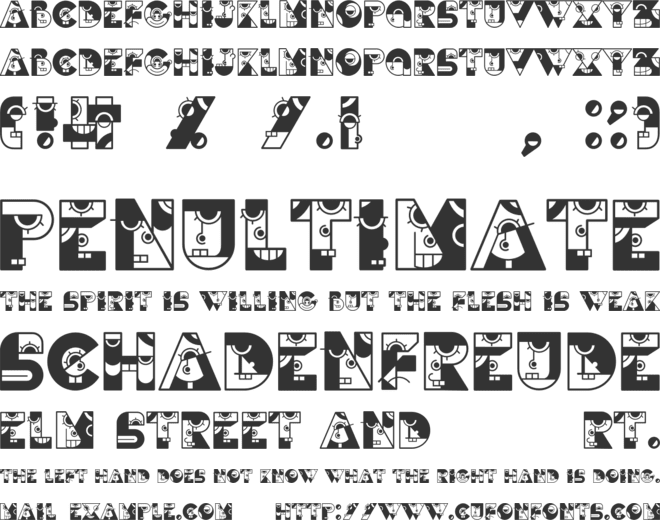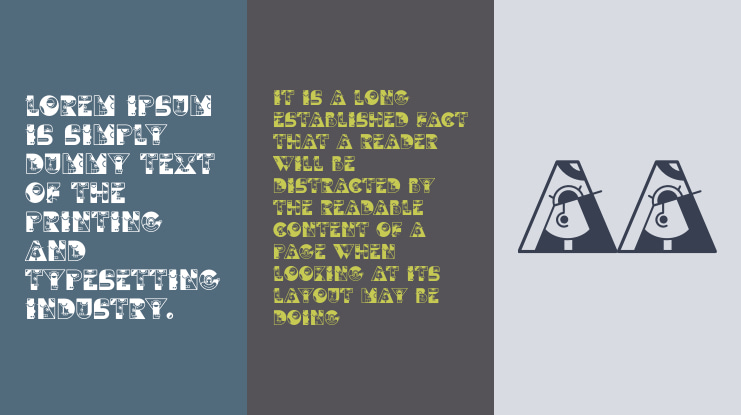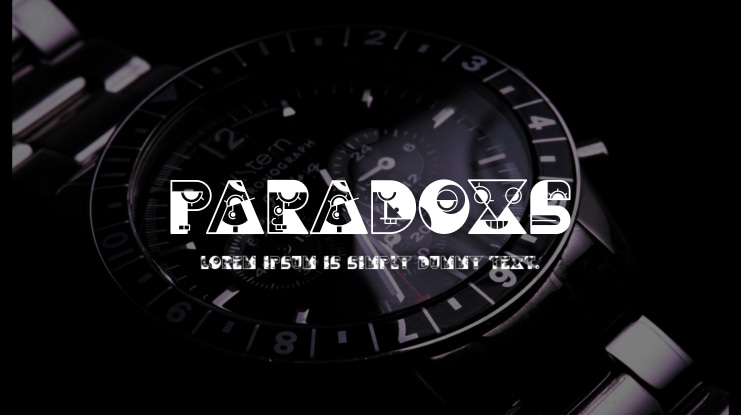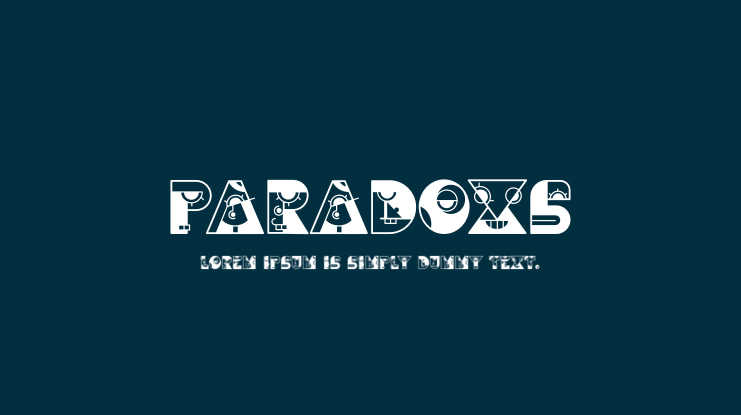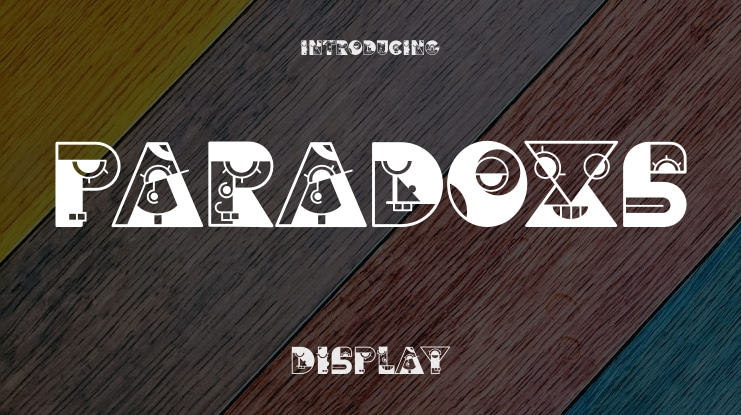
PARADOXS Font Family
Paradoxs is a quirky and fun display typeface, will be perfect for art, headline, books, greeting cards, logos, posters or anything that requires a fun and happiness and expression font look!